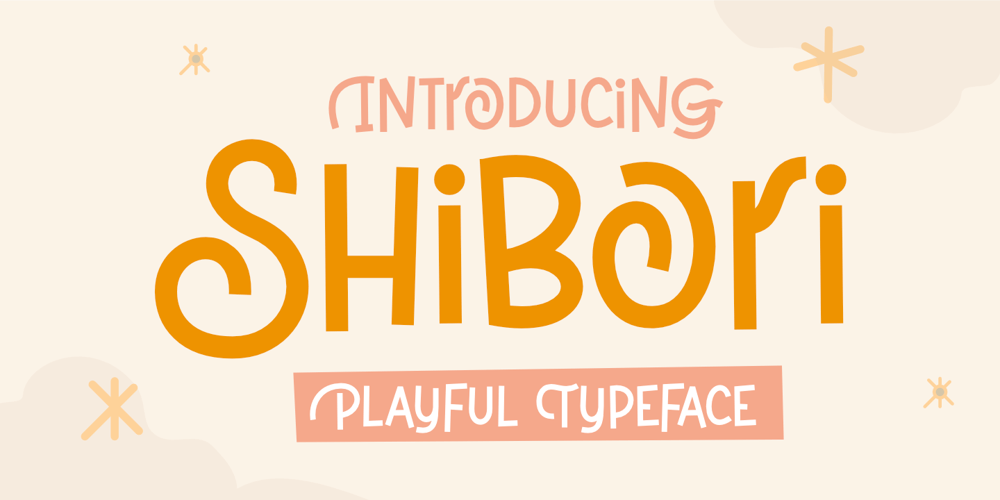
Shibori
Shibori font
Shibori Font Family was designed by Toni Dzulham and published by Dumadi. Shibori contains 1 styles and family package options. Meet our new brand font design, Shibori which is designed and created by Dumadistyle.Shibori is a playful typeface font created for a multipurpose creative fun project. Its fun, cheerful and joyful characteristics are designed for children-friendly product display. Kids storybook cover, youtube for kids thumbnail, the font will surely be sparkling the joy.What’s Included :+ Shibori (OTF)+ Standard glyphs+ Style Alternate+ Ligature+ Works on PC & Mac, Simple installations+ Multilingual AccentThis Font Support Languages :Afrikaans, Albanian, Asu, Basque, Bemba, Bena, Breton, Catalan, Chiga, Cornish, Danish, Dutch, English, Estonian, Faroese, Filipino, Finnish, French, Friulian, Galician, German, Gusii, Indonesian, Irish, Italian, Kabuverdianu, Kalenjin, Kinyarwanda, Luo, Luxembourgish, Luyia, Machame, Makhuwa, Meetto, Makonde, Malagasy, Manx, Morisyen, North, Ndebele, Norwegian, Bokmål, Norwegian, Nynorsk, Nyankole, Oromo, Portuguese, Quechua, Romansh, Rombo, Rundi, Rwa, Samburu, Sango, Sangu, Scottish, Gaelic, Sena, Shambala, Shona, Soga, Somali, Spanish, Swahili, Swedish, Swiss, German, Taita, Teso, Uzbek (Latin), Volapük, Vunjo, Zulu.Accessible in Adobe Illustrator, Adobe Photoshop, Adobe InDesign, even work on Microsoft Word. PUA Encoded Characters – Fully accessible without additional design software. Fonts include multilingual support+ Image used: All photographs/pictures/vectors used in the preview are not included, they are intended for illustration purposes only.Thanks